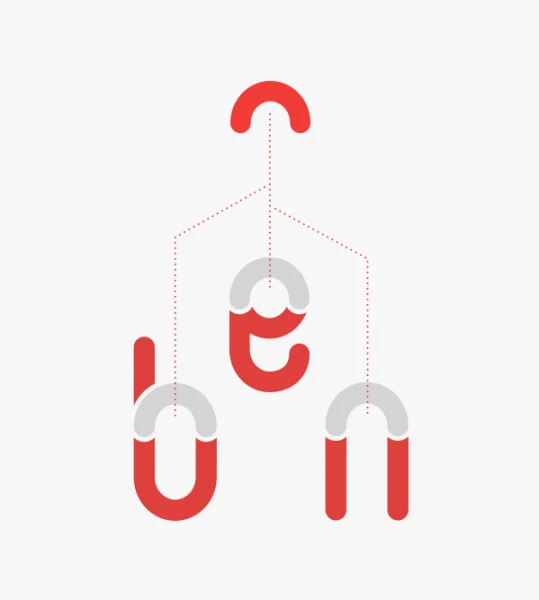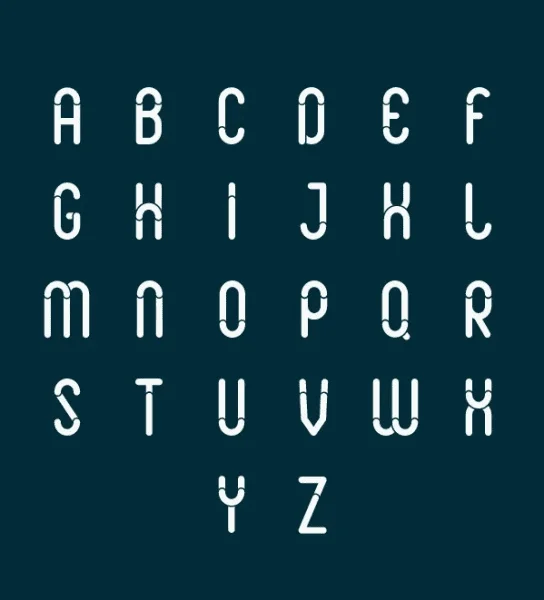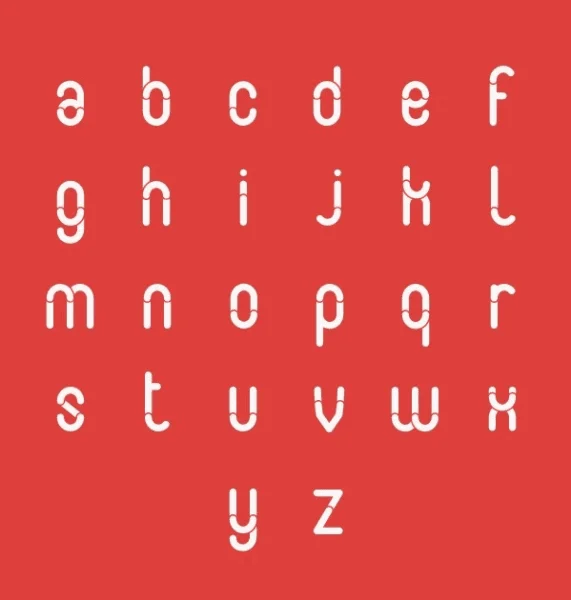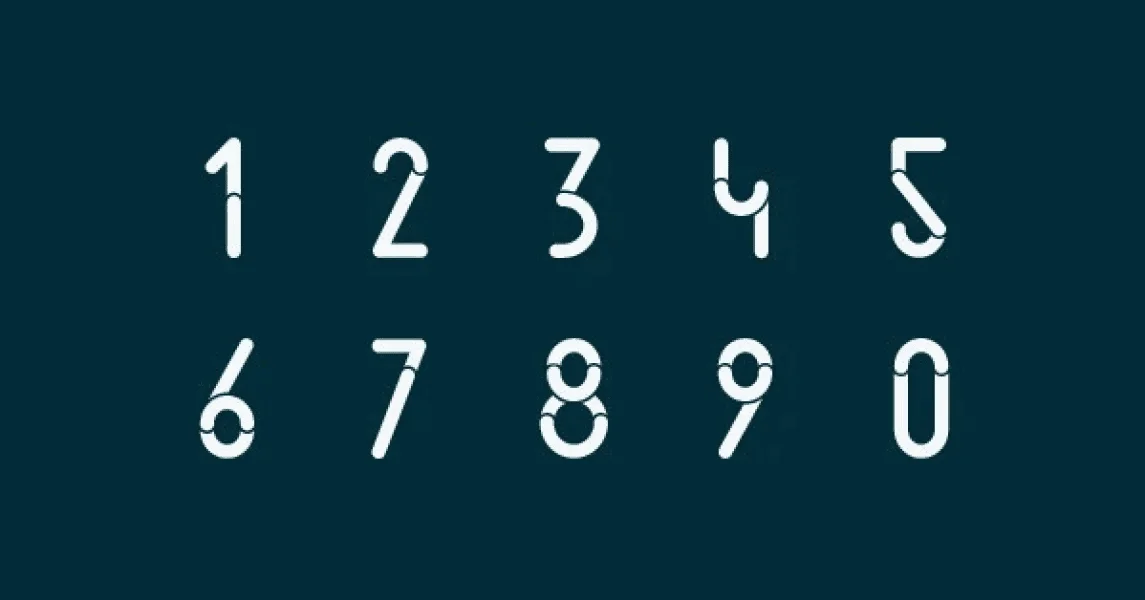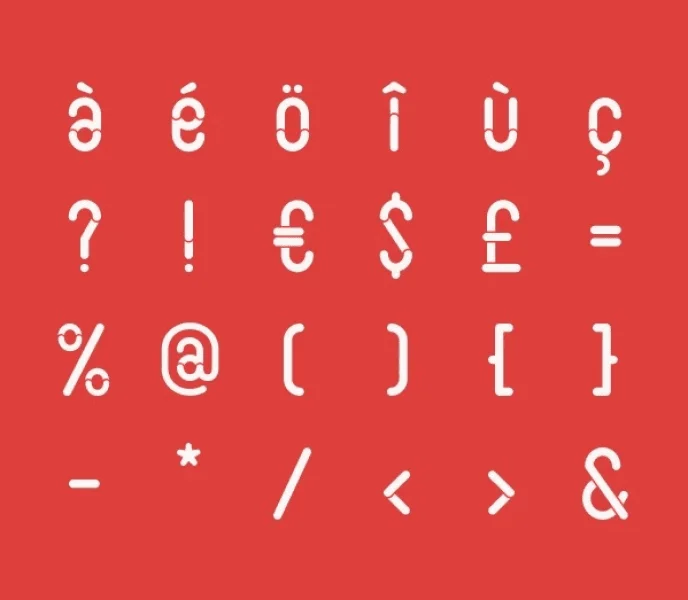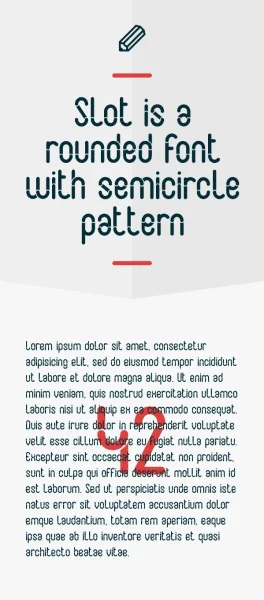
Slot is a rounded font with a simicircle pattern. Show some support and visit me at Behance, Facebook or my personal website at adrien-coquet.com, thanks.